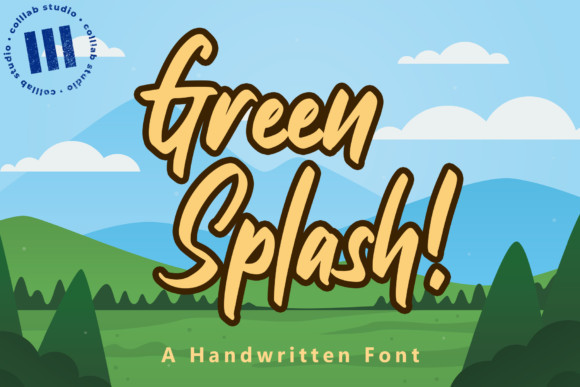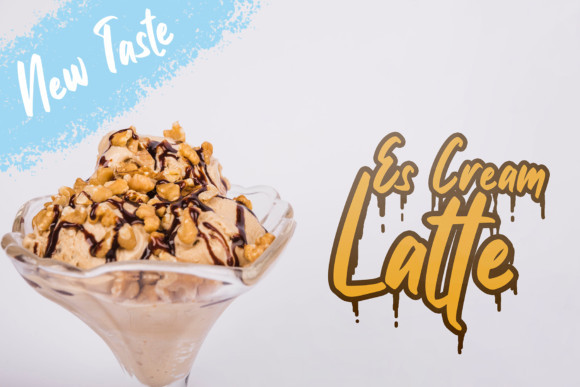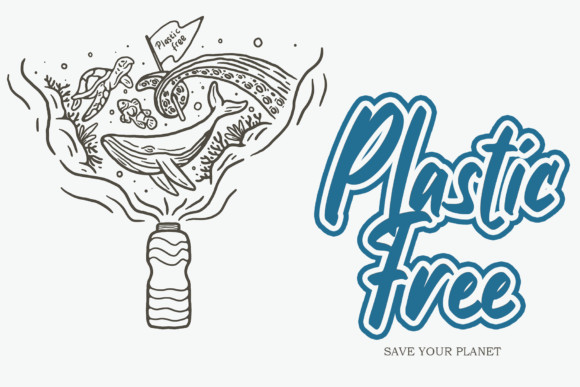
Green Splash Font
Green Splash! is a display handwritten font, described by an elegant touch, perfect for your favorite projects. Fall in love with its incredibly distinct and timeless style and use it to create spectacular designs!